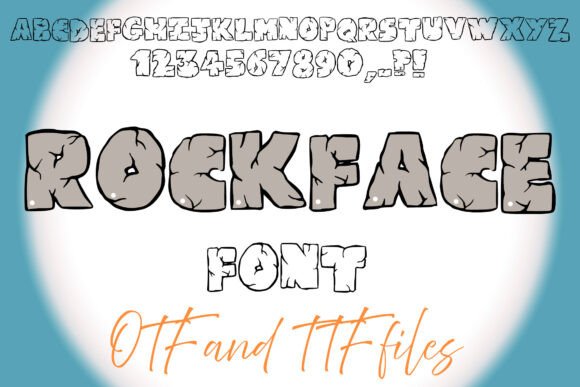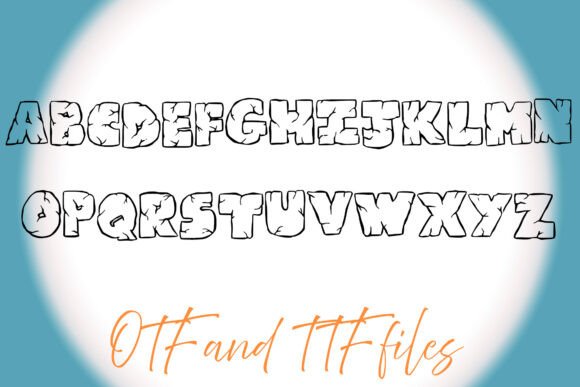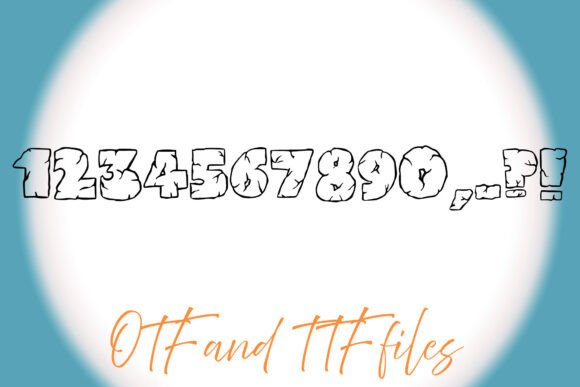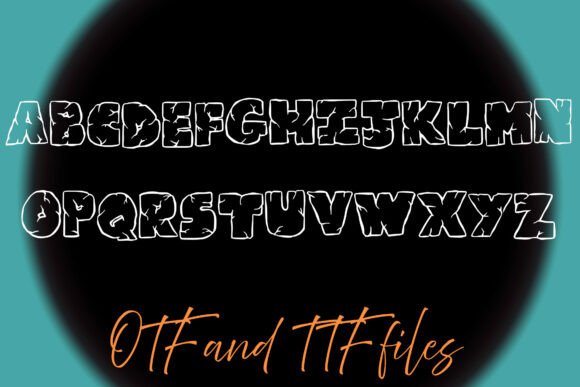
Rockface Font: Bold Display Font for Playful Branding & Cricut Projects!
About the Rockface Font
Presenting Rockface Font, a unique and stylish typeface that will make your work stand out. Rockface is a bold and rugged display font inspired by stone and rock textures. With its hand-drawn, chiseled look, this font is perfect for adventure-themed designs, kids’ projects, gaming, cartoons, and anything that needs a strong, prehistoric feel. Whether you’re creating a comic, logo, or playful branding, Rockface brings a fun and powerful impact to your work!
Rockface excels in headlines, logos, and short, impactful text for posters and packaging. Its rugged texture adds a strong visual punch, ideal for brands emphasizing adventure, strength, or a playful, rebellious spirit. Avoid using it for body text or UI elements; its heavy weight and irregular texture hinder readability in extended passages.
Pairing Rockface with a clean sans-serif like Montserrat for body copy creates a strong contrast, balancing its bold character with easily readable text. For a more playful feel, consider pairing it with a rounded geometric sans-serif such as Circular Std. A contrasting serif like Playfair Display could add a touch of sophistication to more refined projects.
Rockface’s core personality is bold and playful, yet grounded in a sense of rugged strength. It’s best suited for projects that require a powerful and memorable visual impact.
Rockface Font Usage Examples
Rockface Font Example